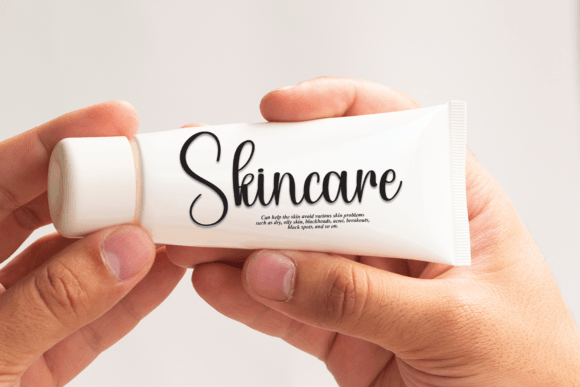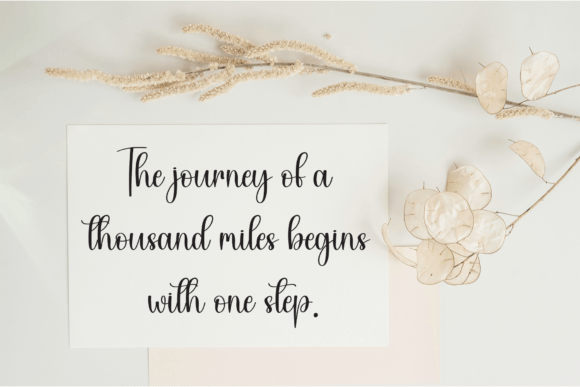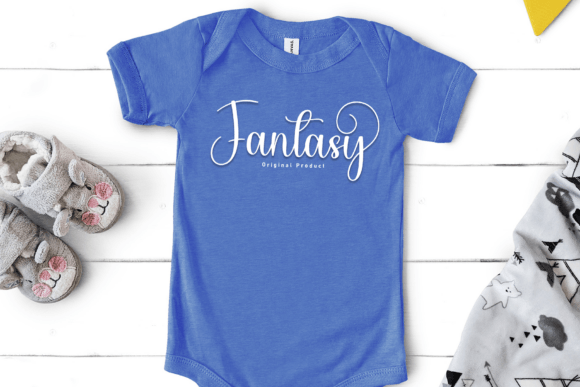
Introduction to Santa Holiday Font
Santa Holiday is a lovely handwritten script font that feels elegant and playful.
Its flowing, smooth lines give it a personal and artistic touch, perfect for creating beautiful designs like cards, logos, or invitations .
Key Features of Santa Holiday Font
Why Choose Santa Holiday Font?